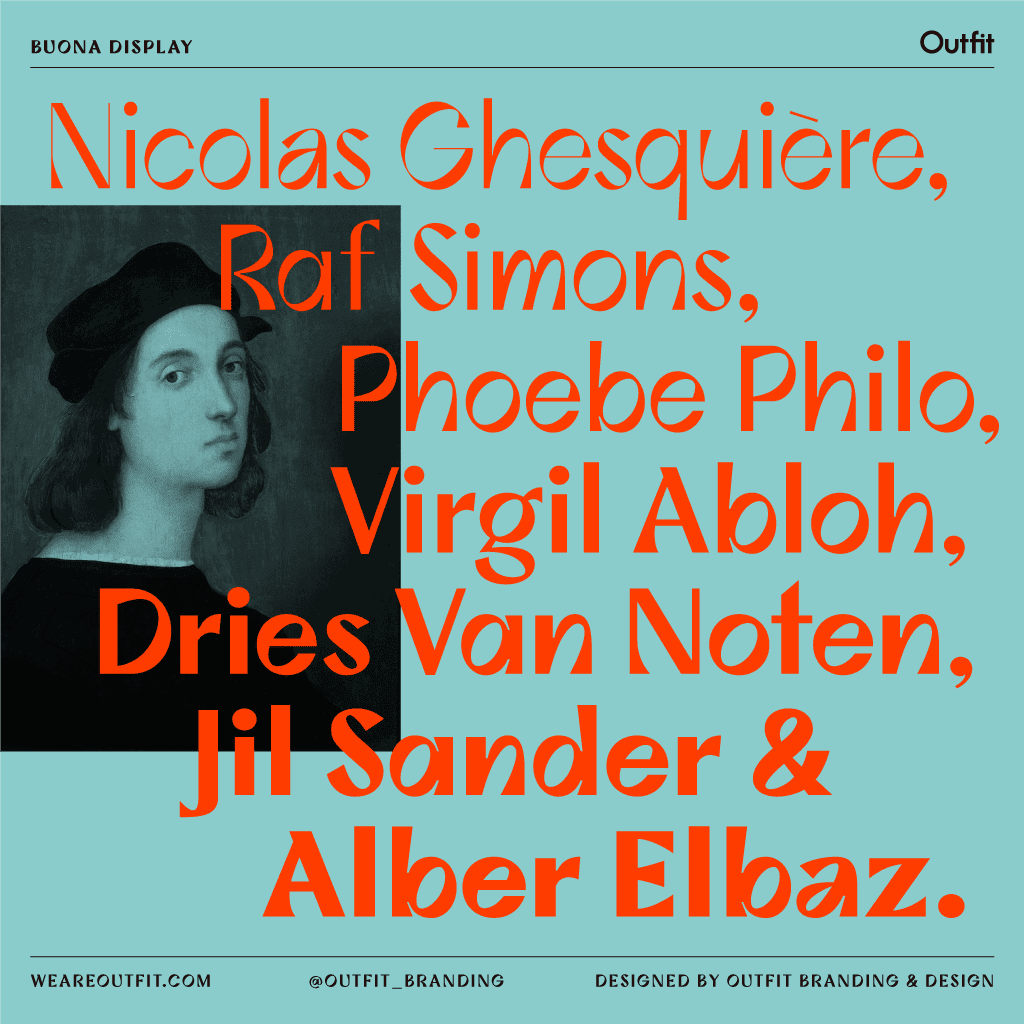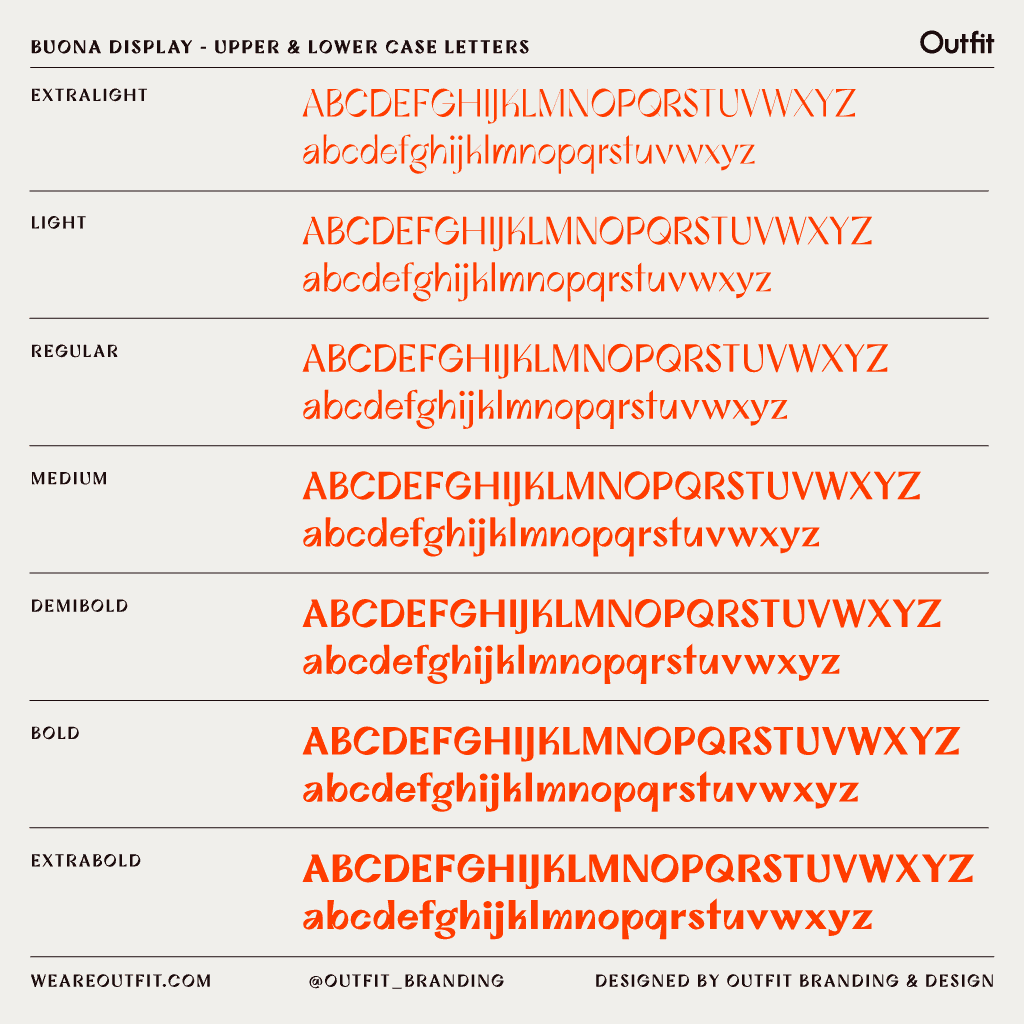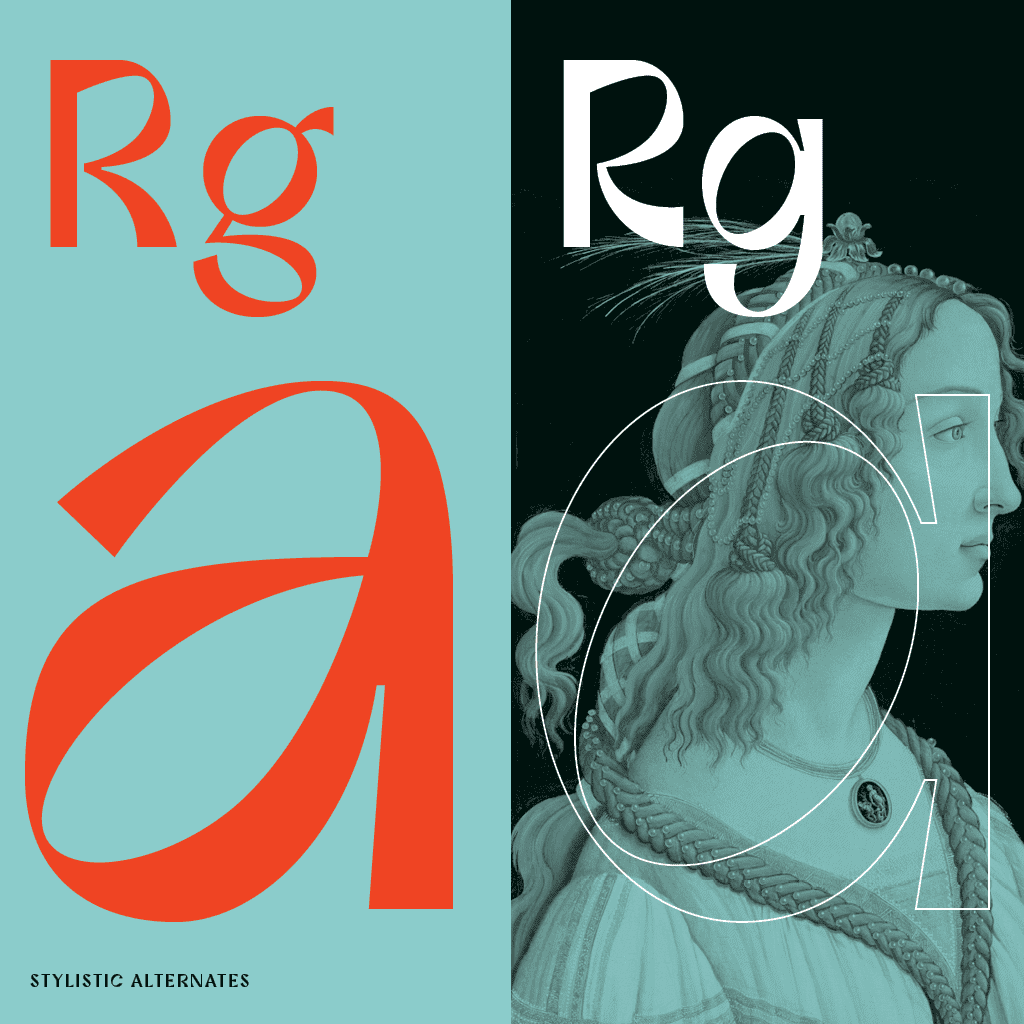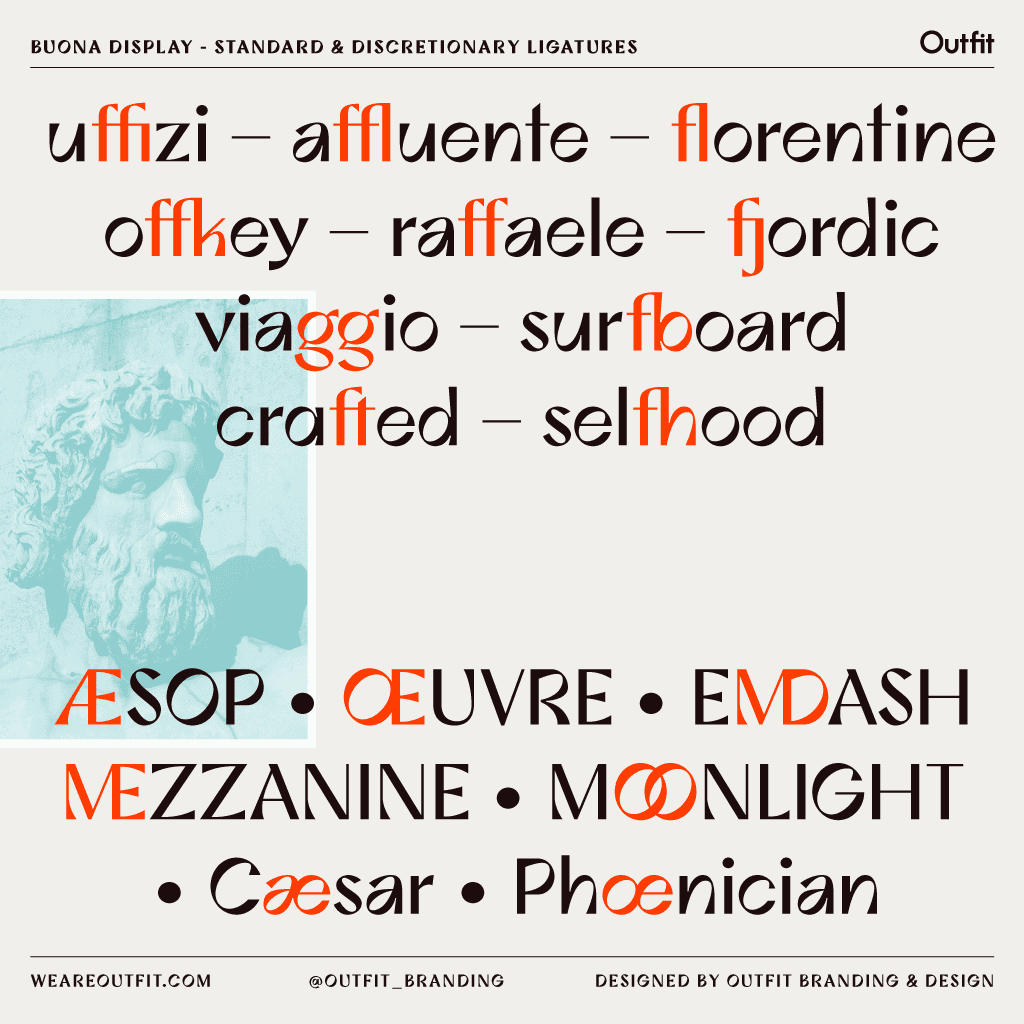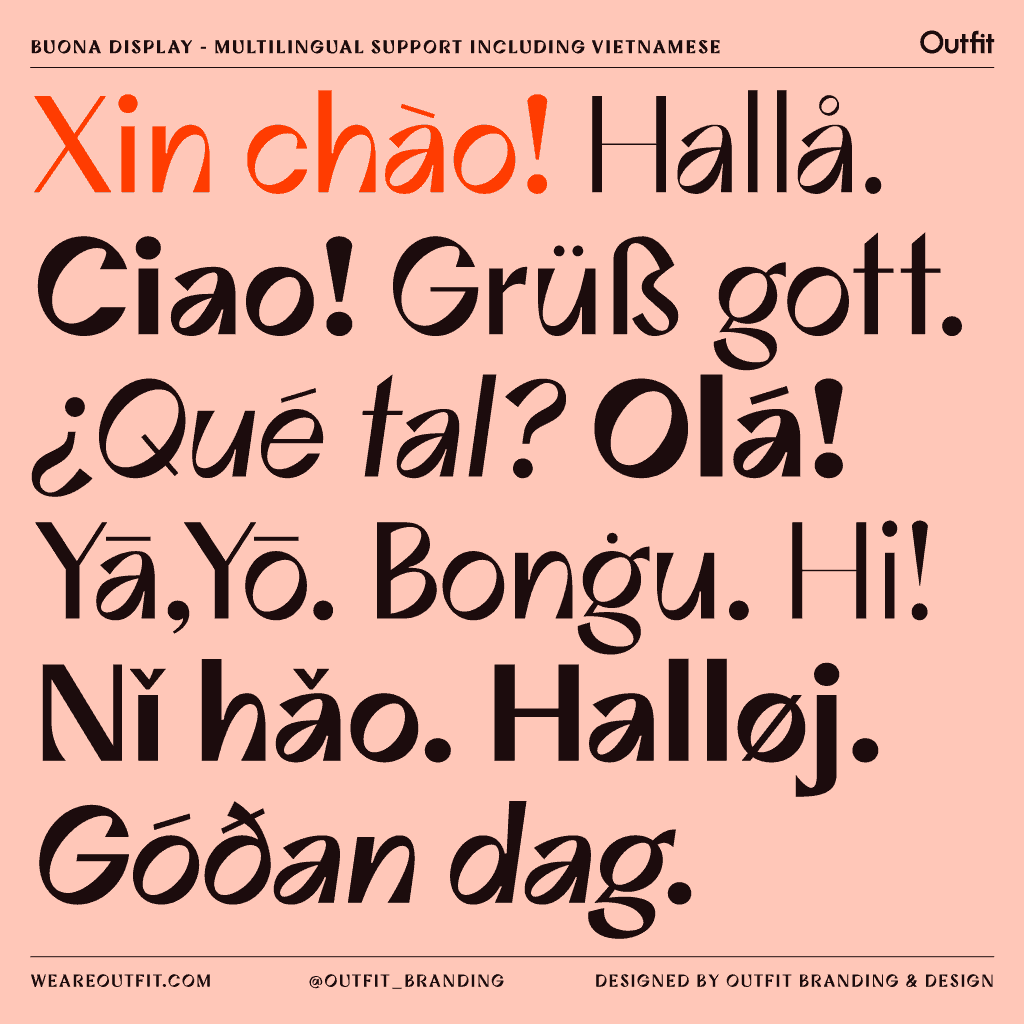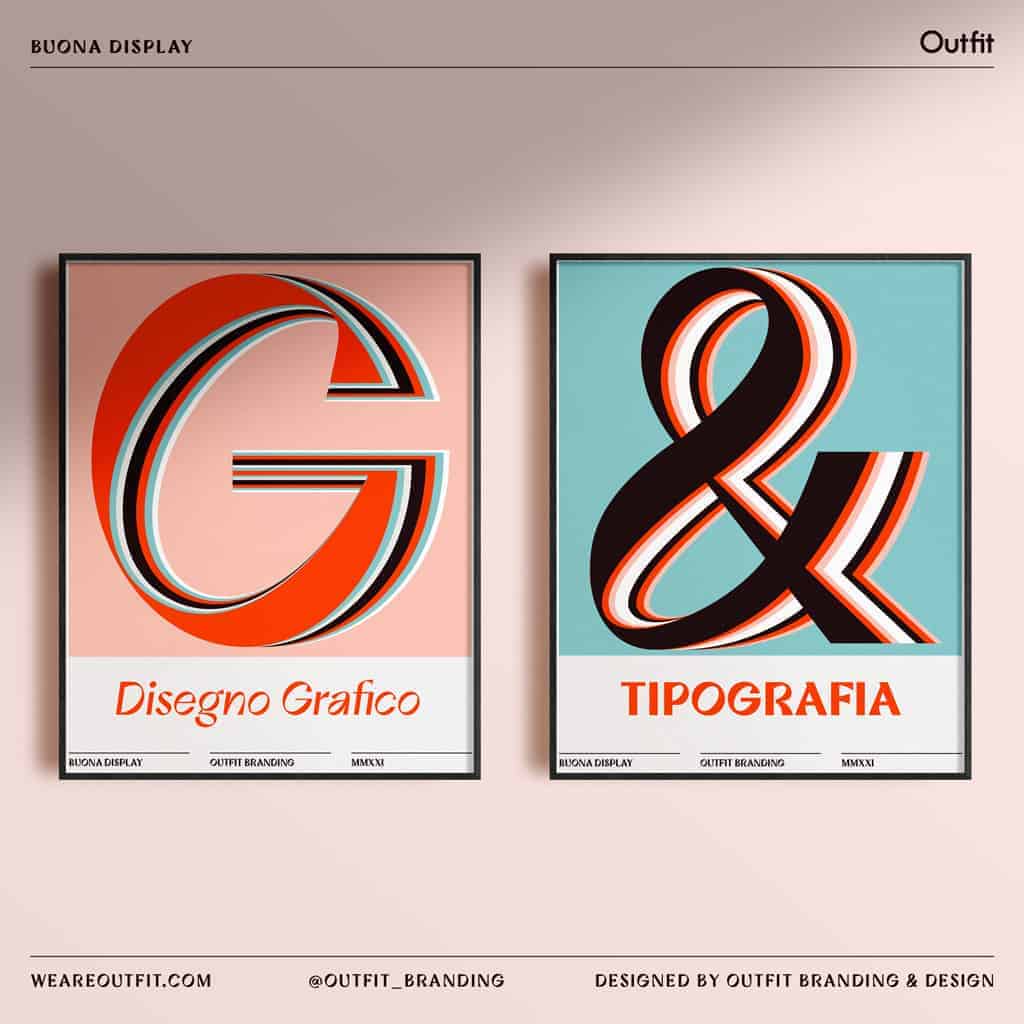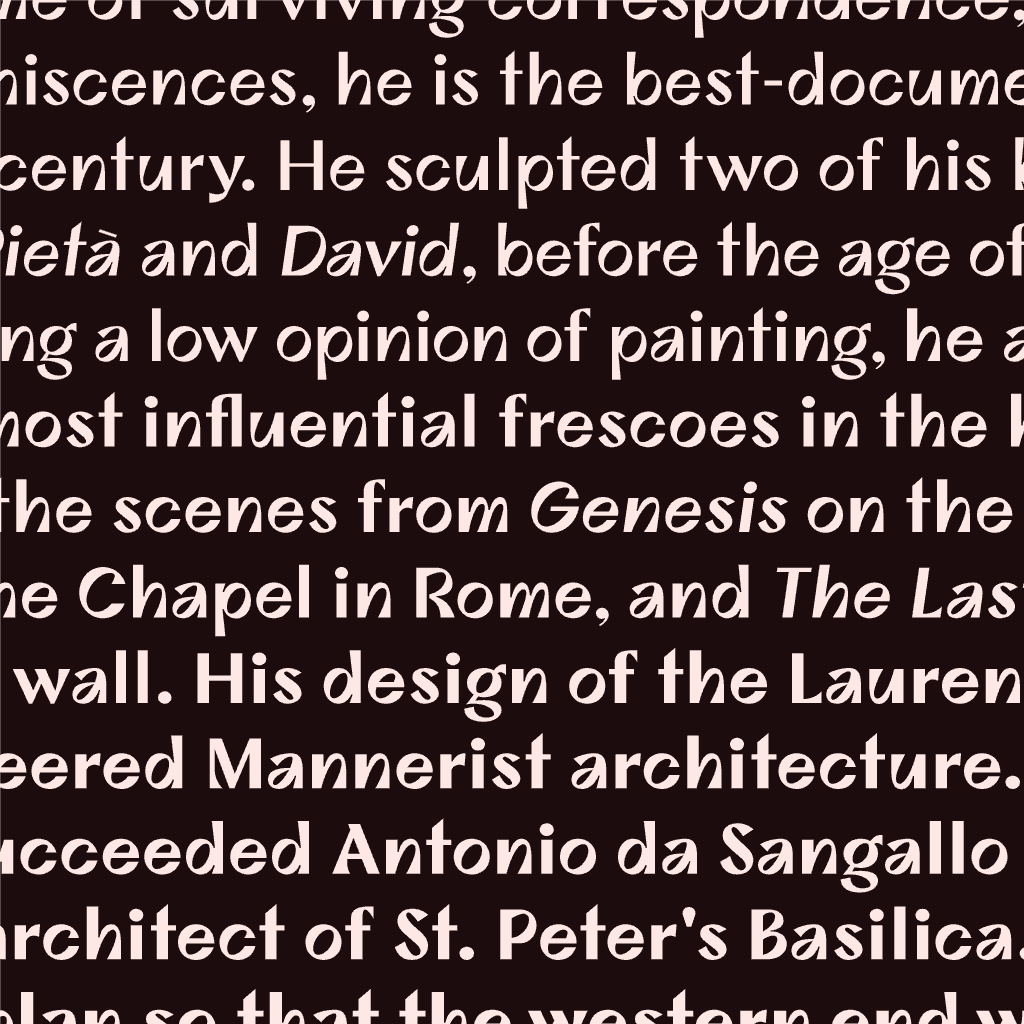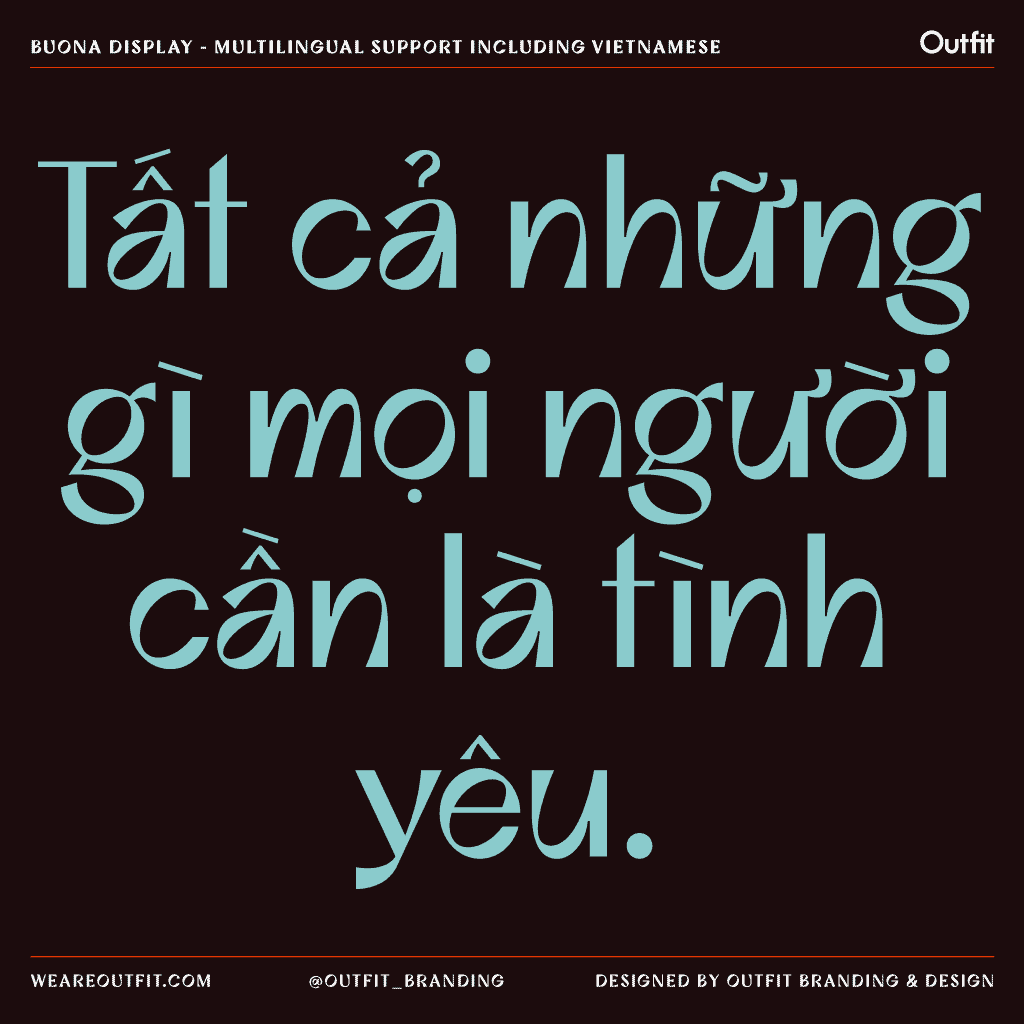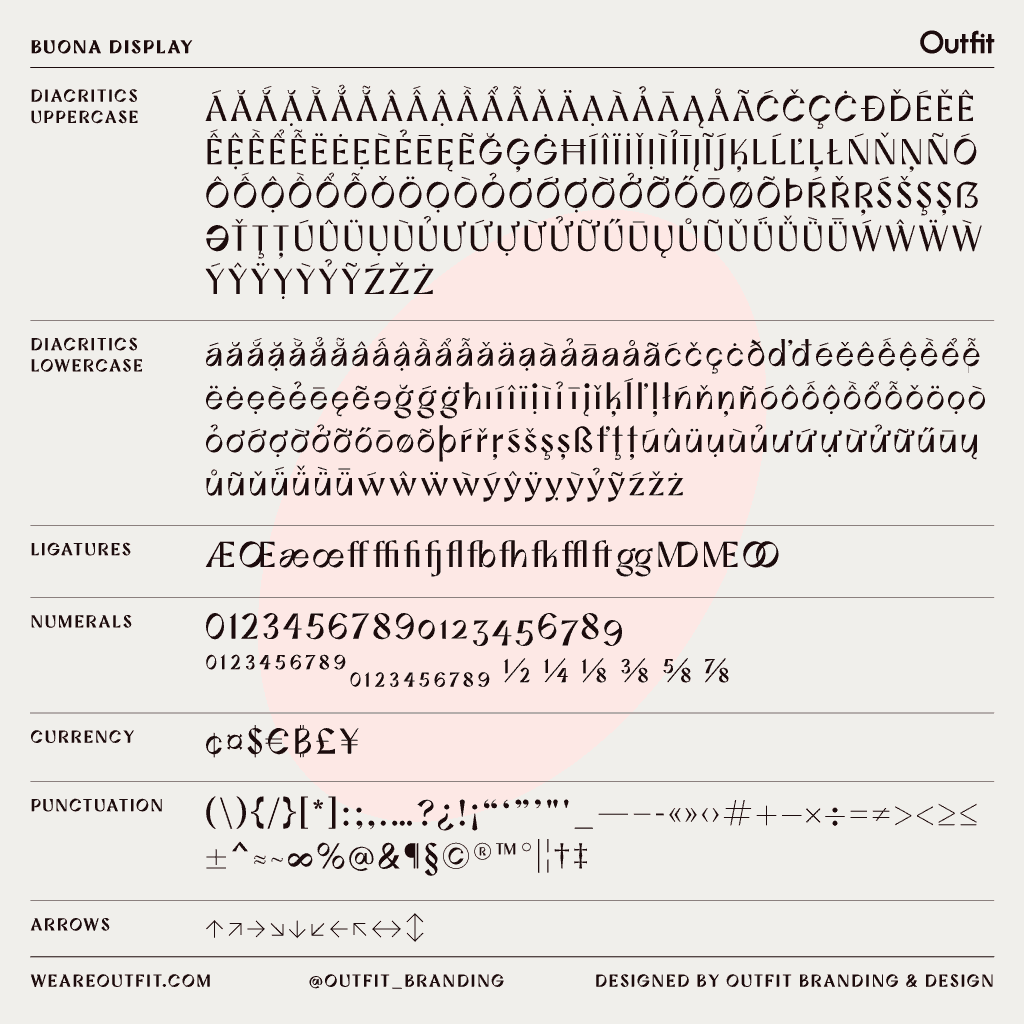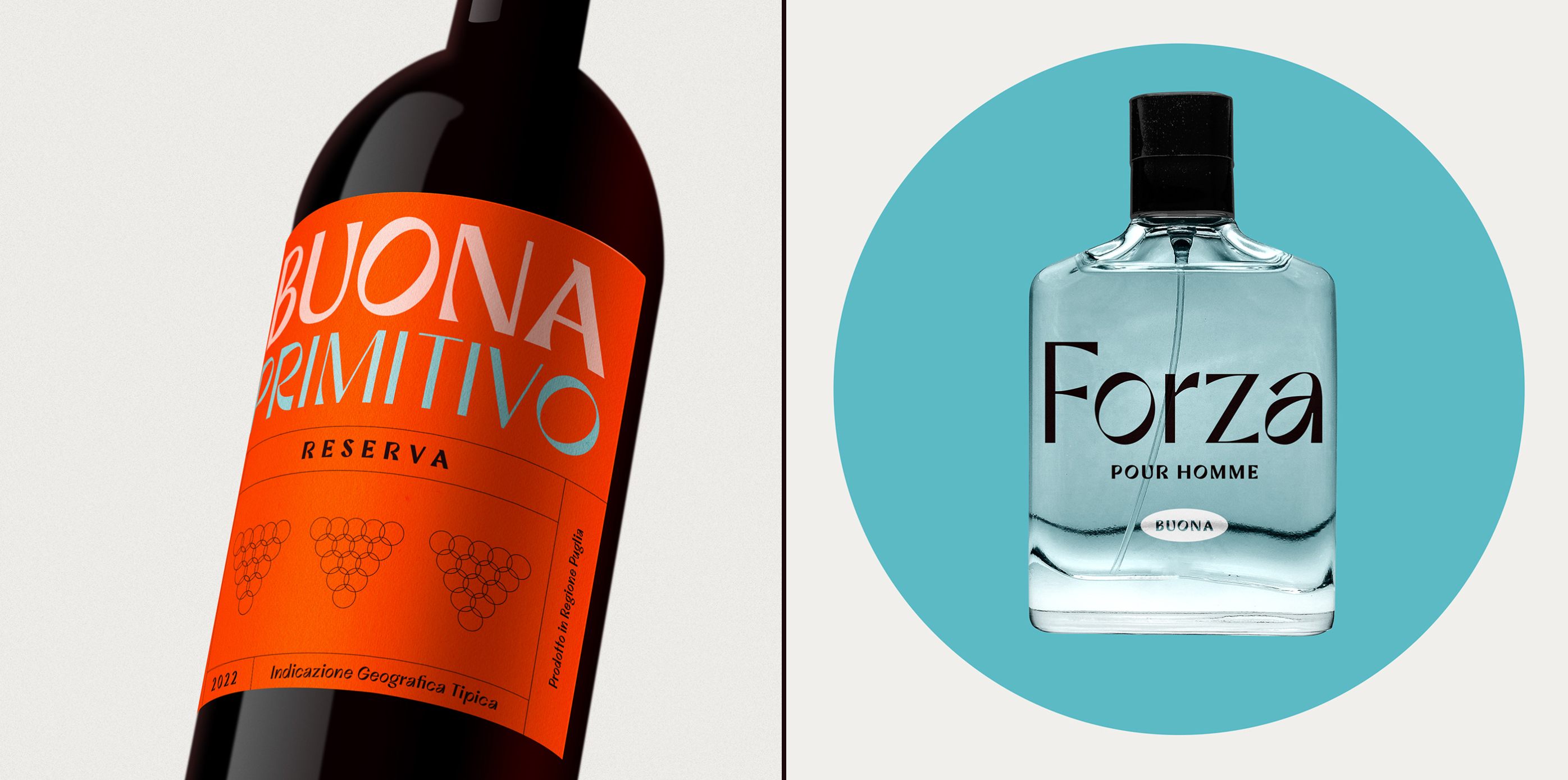
Buona Display
Buona Display is a typeface designed for attention-grabbing display purposes, drawing inspiration from the rich heritage of Italian typography. Bold and slightly eccentric, Buona Display reveals its sophisticated details prominently at large sizes, making a striking impression in any setting.
This versatile typeface is perfect for a wide range of applications, from high-fashion labels to dynamic logotypes, modern editorial layouts, and impactful billboard signage.
- 597 Glyphs
- Subscript & superscript
- Old-style figures
- Diacritics (standard accented & extended accented)
- Standard ligatures, discretionary ligatures
- Fractions, symbols, punctuations & other symbols
- Vietnamese language support